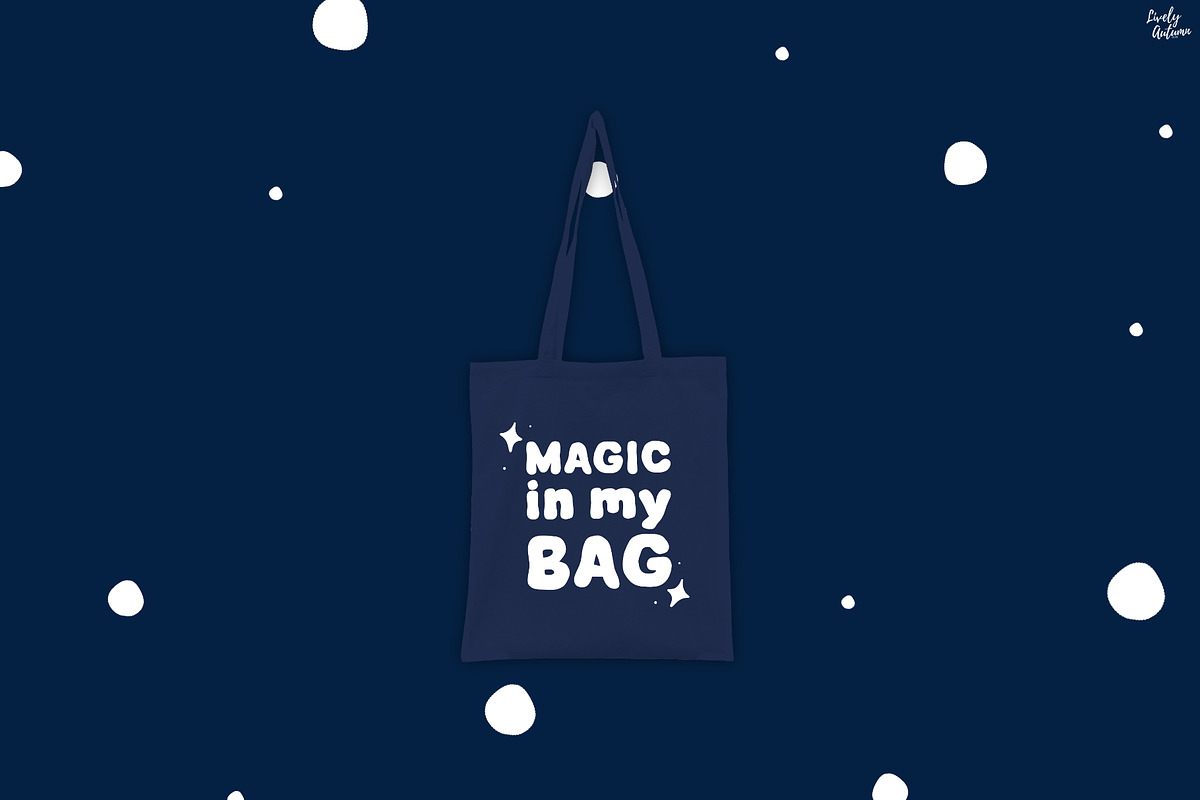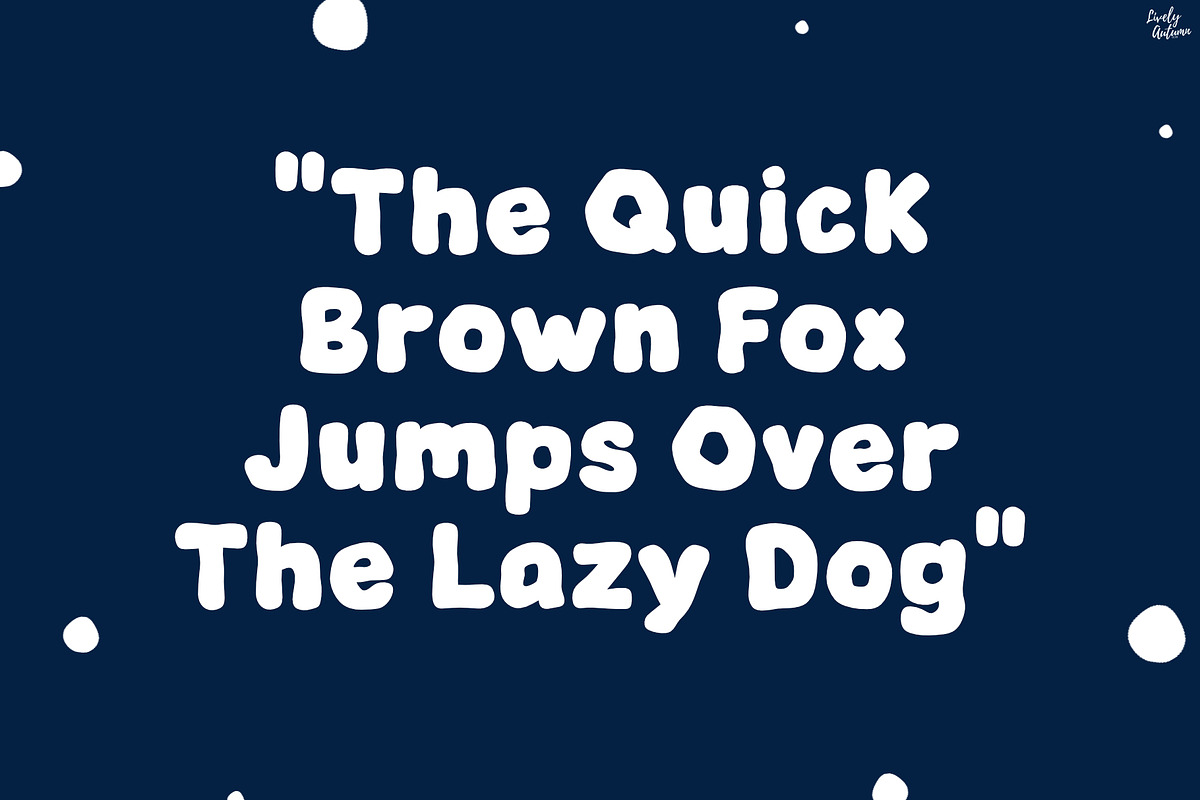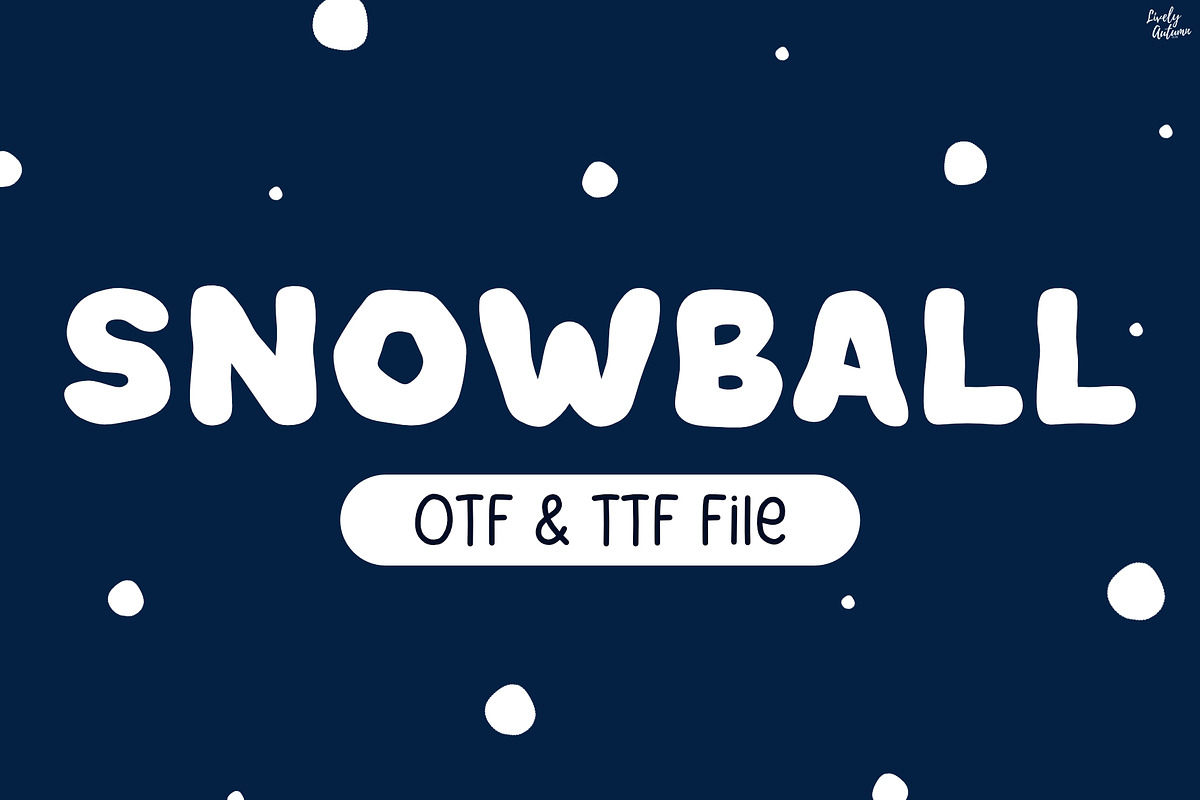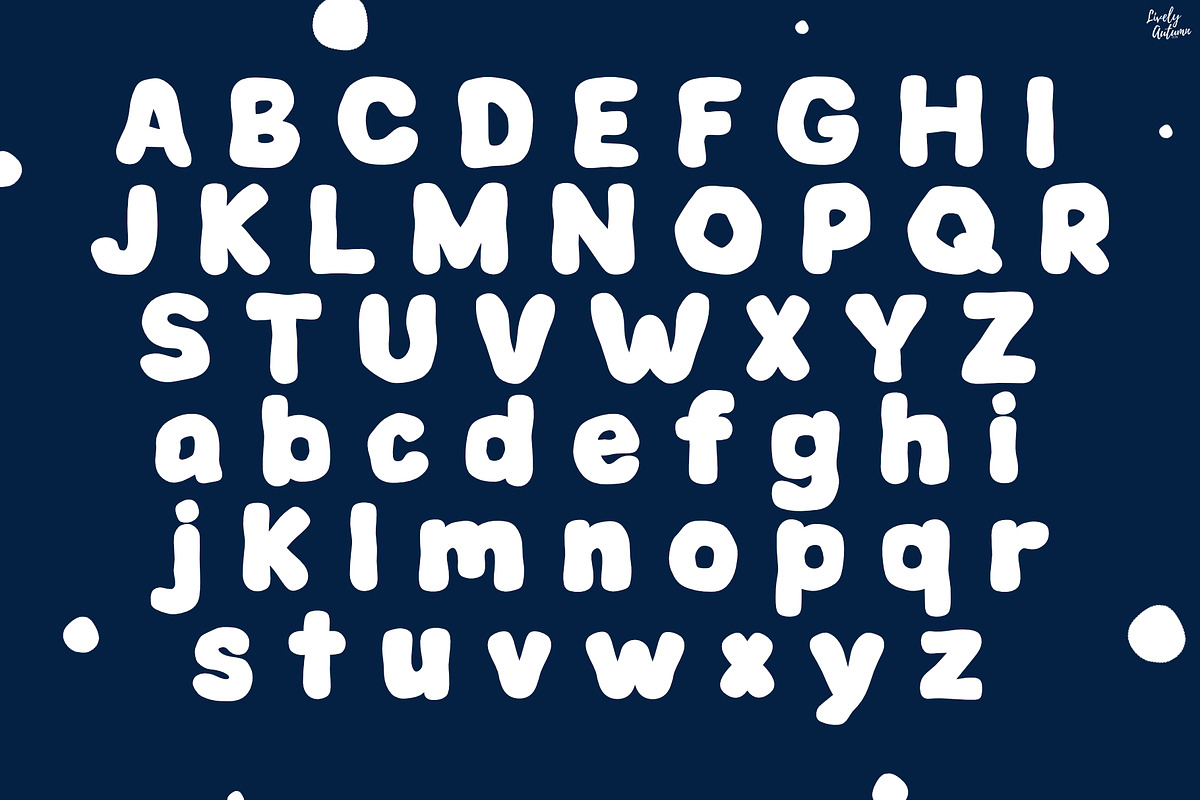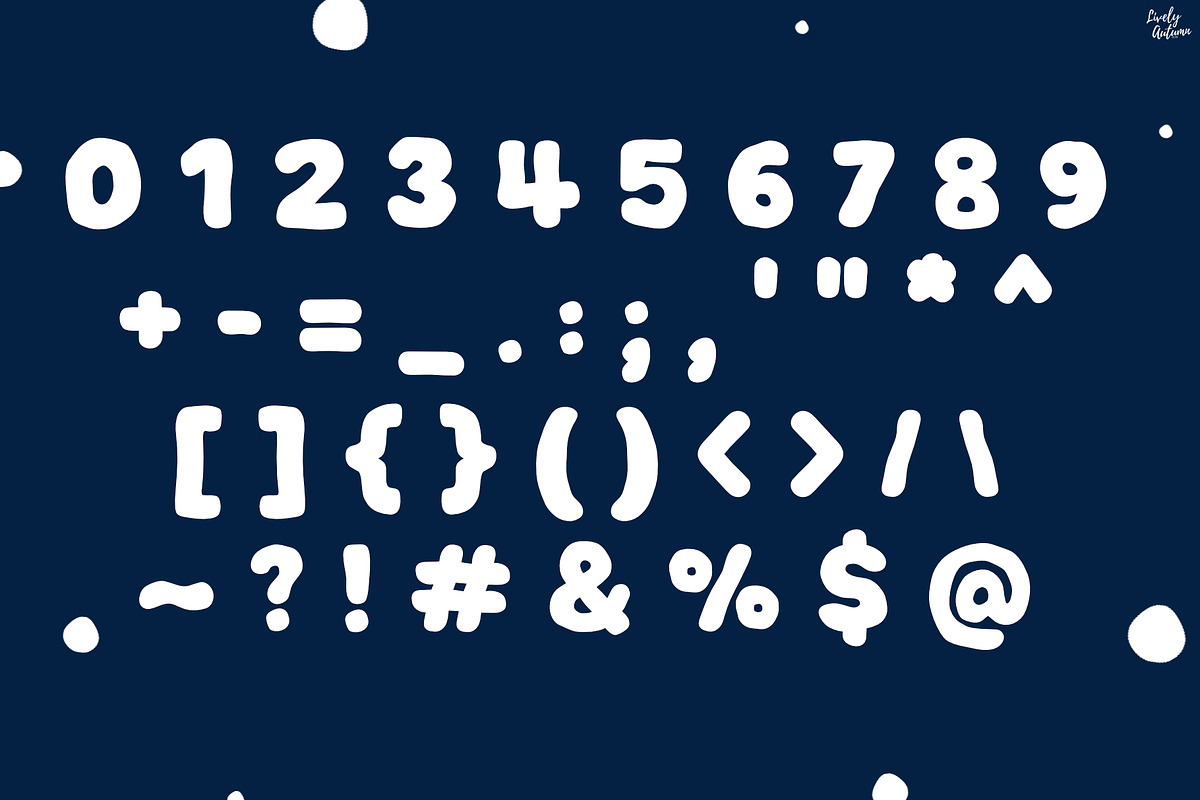
Snowball | Handwritten font
Snowball Font is a cute, chubby handwritten font with soft shapes inspired by snow. Perfect for your personal projects and various projects. From invitations to posters, social media graphics, journals, stickers and much more.
- Font includes: uppercase, lowercase, numbers, and punctuation